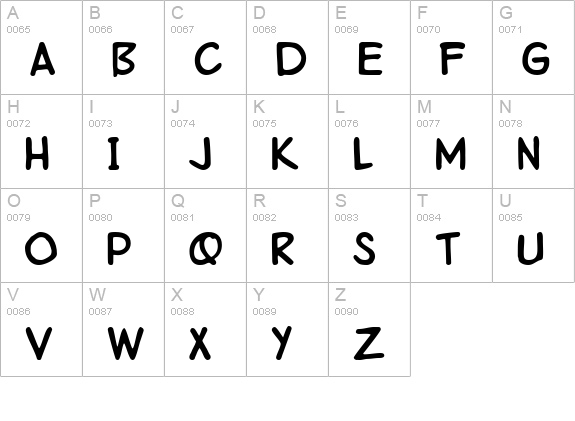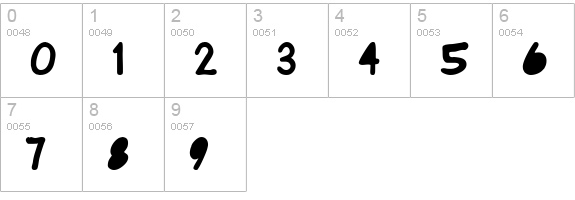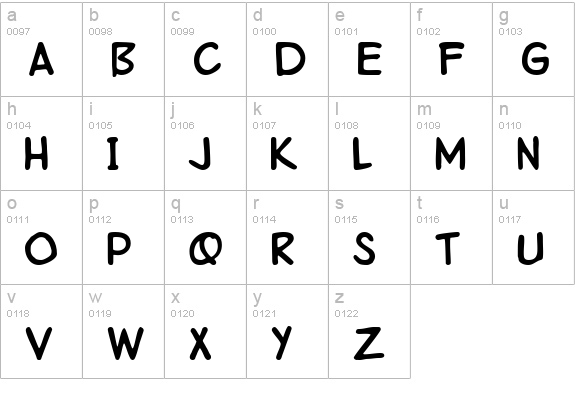
Tonio Font Details
Tonio font is a stunning typeface that effortlessly combines elegance with a modern twist. With its clean lines and sophisticated curves, this font is perfect for adding a touch of class to any design project. Whether you're creating a logo, designing a website, or crafting invitations, Tonio font is sure to make a lasting impression. One of the best things about Tonio font is that it's free! That's right, you can download this incredible font without spending a dime. By offering Tonio font for free, the creators have made it accessible to everyone, regardless of their budget. Now, you don't have to compromise on quality or style just because you're on a tight budget. To get your hands on Tonio font, simply head over to FontsMarket.com, where it is freely available for download. FontsMarket.com is a leading platform for font enthusiasts, offering a wide range of high-quality fonts for various design purposes. With Tonio font being one of their top offerings, you can trust that you're getting a font that is not only visually stunning but also reliable and versatile. Download Tonio font today and let your creativity soar. Whether you're a professional designer or a passionate hobbyist, this font is a must-have in your collection. With its timeless appeal and unique style, Tonio font will help you create designs that stand out from the crowd. Don't miss out on this incredible opportunity to enhance your projects with a free font that is as beautiful as it is functional.